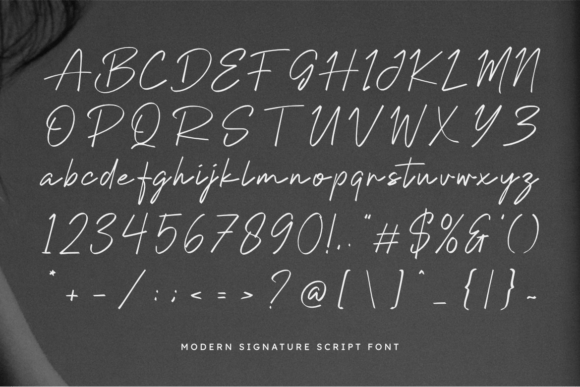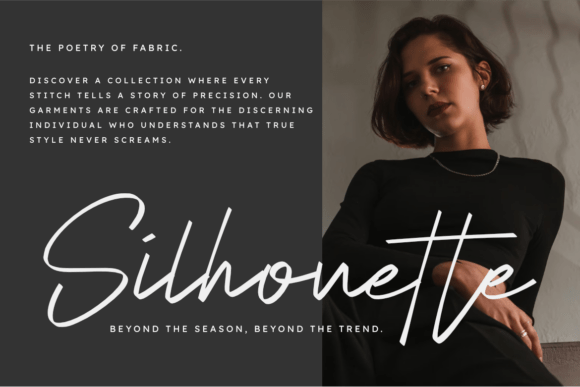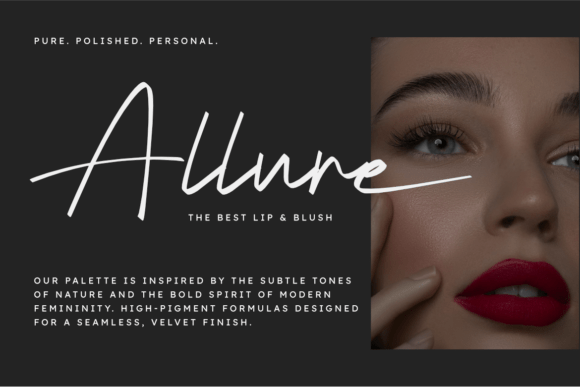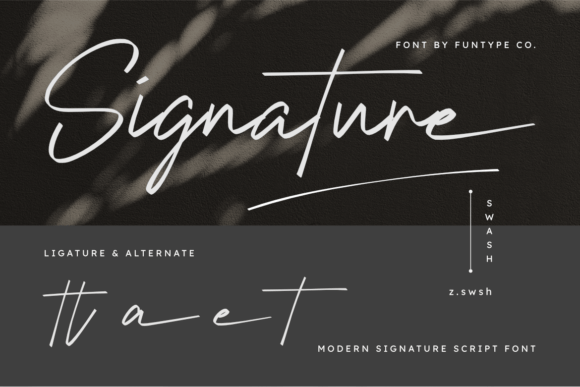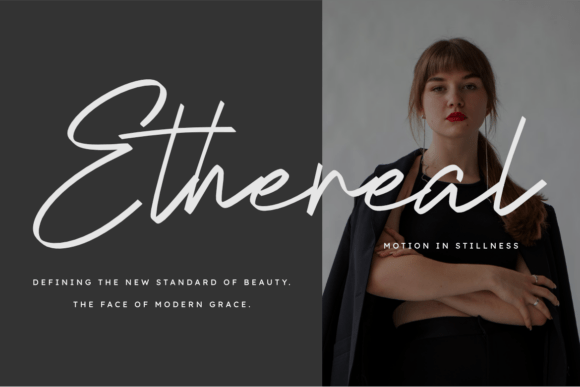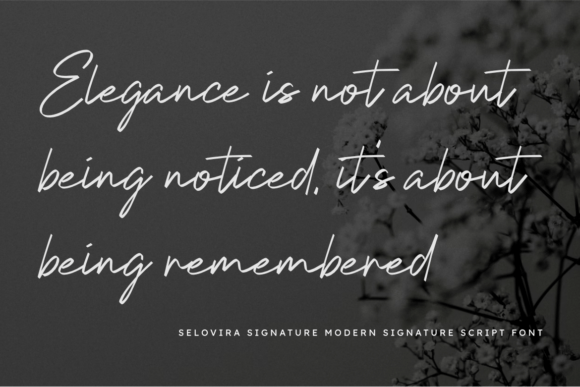
Introduction to Selovina Signature Font
Have you ever stared at a blank page, trying to find the perfect font to elevate your creative project? The struggle is real, especially when you’re working on a high-stakes design. But what if you had a secret weapon to give your visuals a professional, striking look? Enter the Selovina Signature Font, a bold and elegant signature script font designed to make an impact.
This design resource is more than just a pretty face – it’s a game-changer for designers looking to take their work to the next level. With its natural flow and refined structure, the Selovina Signature Font is perfect for strong headlines, modern posters, and even wedding invitations. Its clean and confident design gives your visuals a high-quality, professional look that’s sure to impress.
Key Features of Selovina Signature Font
- Unique, handcrafted design perfect for creative projects, making it an excellent design resource for artists and designers.
- Includes a comprehensive set of characters, including uppercase and lowercase letters, numbers, and special symbols, making it ideal for various creative applications.
- Designed with precision, resulting in crisp and clear typography at resolutions up to 300 DPI.
Honest Review: Selovina Signature Font
I recently stumbled upon the Selovina Signature Font and I must say it’s been a game-changer for my creative projects. This high-quality design resource is perfect for anyone looking to add a touch of elegance to their work.
- ✨ The font’s versatility – it’s suitable for a wide range of creative projects, from logos to business cards.
- ⚠️ The font is only available in a limited number of weights, which may not be suitable for all design needs.
Overall, I’m really impressed with the Selovina Signature Font and I would definitely recommend it to fellow designers. It’s a great addition to any design library and can help take your creative projects to the next level.